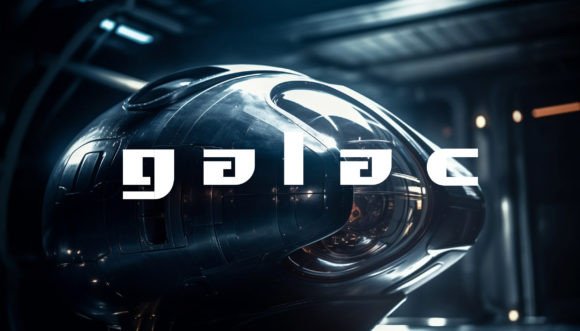
Lixdu
About Lixdu Font
Lixdu is a bold and futuristic looking display font. This font is suitable for designs such as t-shirts, sportswear, logos, advertisements, clothing, and more.